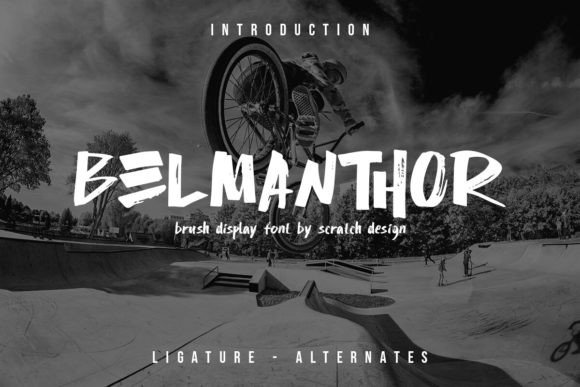
Dive into the world of urban typography with Belmanthor Font, the ultimate display font that captures the essence of street art with its captivating brush-like strokes. This font is not just a collection of letters; it's a canvas for your creativity, a gateway to expressing your rebellious spirit.
Picture this: You're a street artist, standing in front of a towering wall, armed with your spray can and your vision. With Belmanthor Font as your weapon of choice, you transform the dull concrete into a vibrant masterpiece. Each letter you stencil bursts with energy, telling a story, leaving an imprint on the urban landscape.
Belmanthor Font is more than just a font; it's a statement. Its bold and edgy style commands attention, demanding to be seen and heard. Whether you're designing logos, posters, or social media graphics, Belmanthor Font will infuse your work with an electrifying urban vibe.
Imagine your logo adorned with Belmanthor Font, standing out from the crowd with its bold and confident presence. Your branding will take on a new level of authenticity, resonating with those who share your passion for urban culture.
Belmanthor Font is not just limited to the digital realm. Its versatility extends to the physical world as well. Use it to create eye-catching posters that capture the essence of your city, or design invitations that ooze with urban flair. The possibilities are endless.
With Belmanthor Font, you're not just downloading a font; you're joining a movement. A movement of creatives, innovators, and rebels who use their art to transform the world around them. So, embrace your inner urban spirit, pick up Belmanthor Font, and leave your mark on the world, one design at a time.